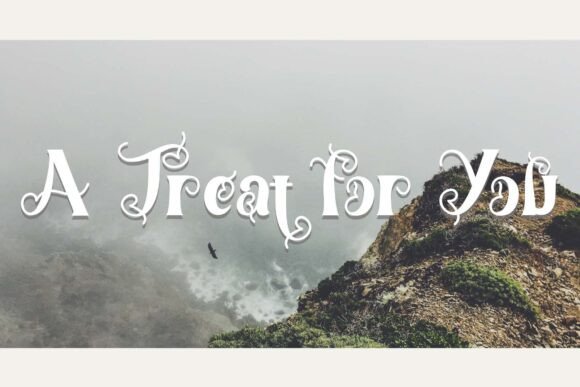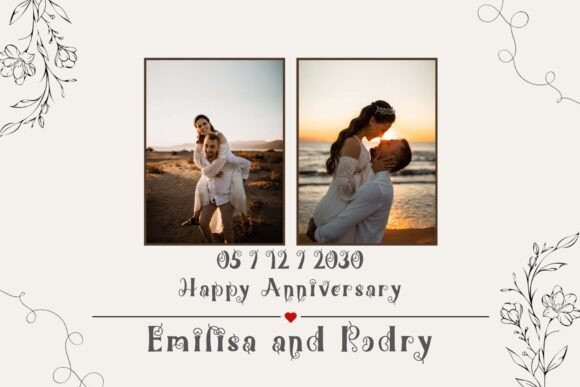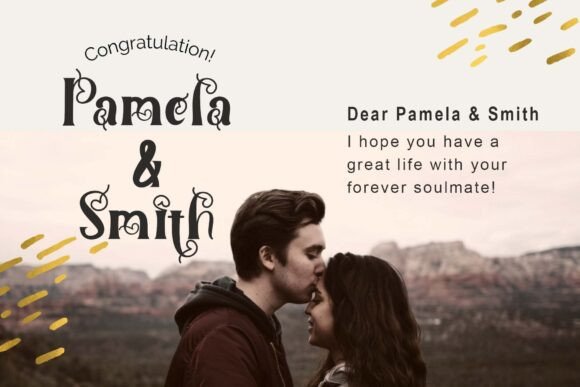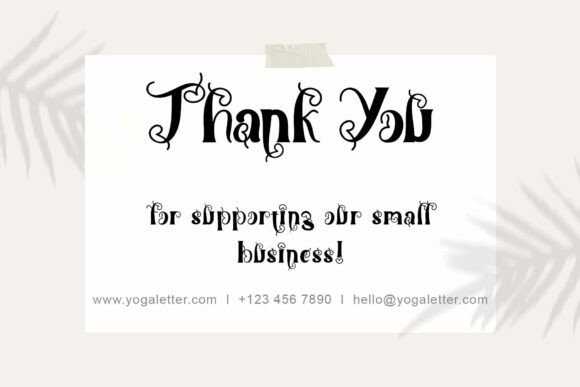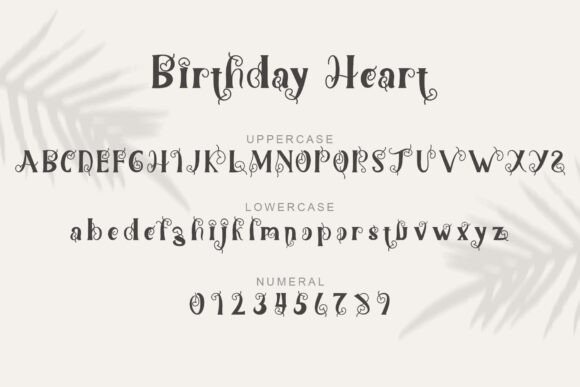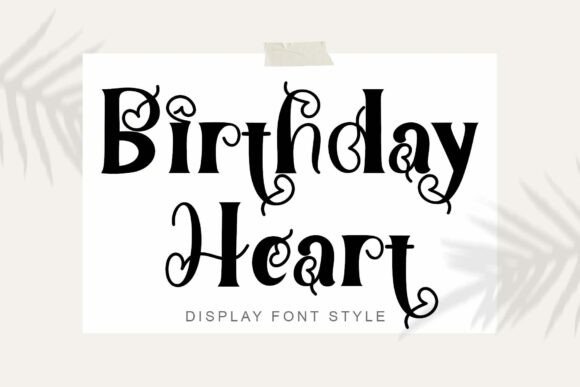
Introducing Birthday Heart Font: The Perfect Elegance for Your Designs
Are you searching for a font that adds a touch of elegance and uniqueness to your designs? Look no further than the Birthday Heart Font. This beautiful display font is perfect for a variety of projects, from wedding and Valentine’s Day designs to Easter and summer-themed creations. In this article, we’ll explore the features and benefits of the Birthday Heart Font and why it’s a must-have for designers and crafters.
What is Birthday Heart Font?
Birthday Heart Font is a unique and elegant display font designed to make your designs stand out. This font is equipped with a range of features, including uppercase and lowercase letters, numerals, punctuations, and multilingual support. Its versatility makes it suitable for a wide range of projects, from print and digital designs to branding and logo creation.
Key Features of Birthday Heart Font
- Uppercase and Lowercase Letters: The Birthday Heart Font includes both uppercase and lowercase letters, allowing you to create stunning headlines and body text.
- Numerals and Punctuations: The font comes with a range of numerals and punctuations, making it perfect for creating detailed designs.
- Multilingual Support: With multilingual support, you can use the Birthday Heart Font to create designs in multiple languages.
The Birthday Heart Font is incredibly versatile and can be used for a wide range of projects, including:
- Wedding Designs: Create beautiful wedding invitations, banners, and decorations with the Birthday Heart Font.
- Valentine’s Day Designs: Add a touch of romance to your Valentine’s Day designs with this elegant font.
- Easter and Spring Designs: The Birthday Heart Font is perfect for creating Easter and spring-themed designs, such as egg decorations and floral arrangements.
- Poster and Print Designs: Use the font to create stunning posters, prints, and banners for any occasion.
- Branding and Logo Creation: The Birthday Heart Font is ideal for creating unique and memorable logos and brand identities.
- Stickers and Decals: Add a personal touch to your stickers and decals with this beautiful font.
Why Choose Birthday Heart Font?
So, why should you choose the Birthday Heart Font for your designs? Here are just a few reasons:
- Unique and Elegant: The Birthday Heart Font is a one-of-a-kind font that adds a touch of elegance to any design.
- Versatile: The font is suitable for a wide range of projects and can be used for both print and digital designs.